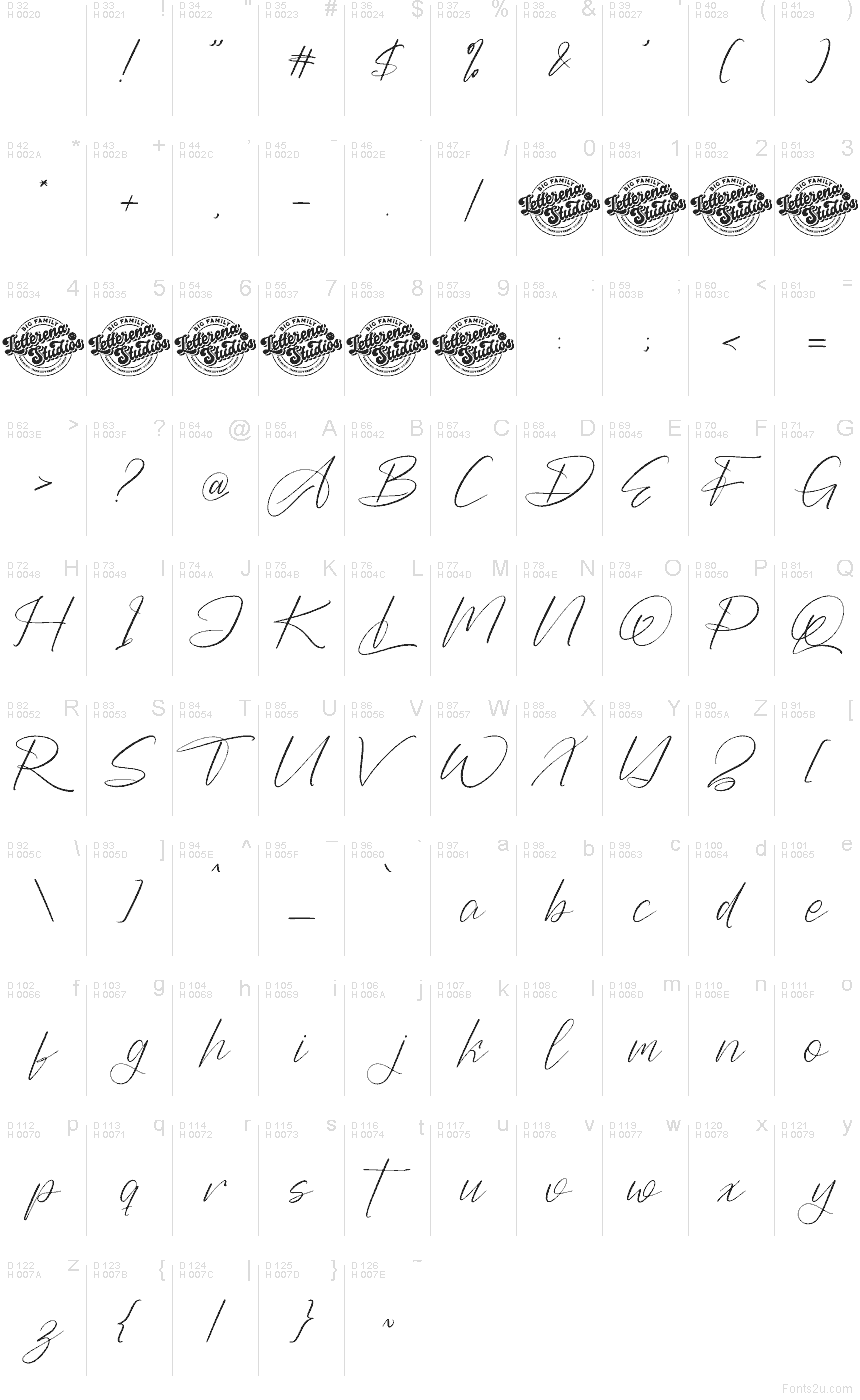
Barthwind DEMO VERSION
Barthwind font by Letterena Studios is a free handwritten script typeface with a breezy, ink-on-paper feel. Its ultra-fine strokes, flowing loops, and generous curves look like they were penned with a smooth gel pen on crisp stationery, giving every word a soft, romantic pull. The letters connect with an easy rhythm that feels personal but still polished, making Barthwind a natural fit for work where emotion and elegance matter.
Using Barthwind, you can bring a graceful touch to wedding invitations, save-the-dates, boutique logos, beauty packaging, Instagram quote posts, and signature-style branding. The airy construction lets it breathe at larger sizes without feeling heavy, so let it lead as a headline or name, then pair this free font with a simple sans serif for body text. Set it slightly larger than usual to show off the long, sweeping connections and refined texture.